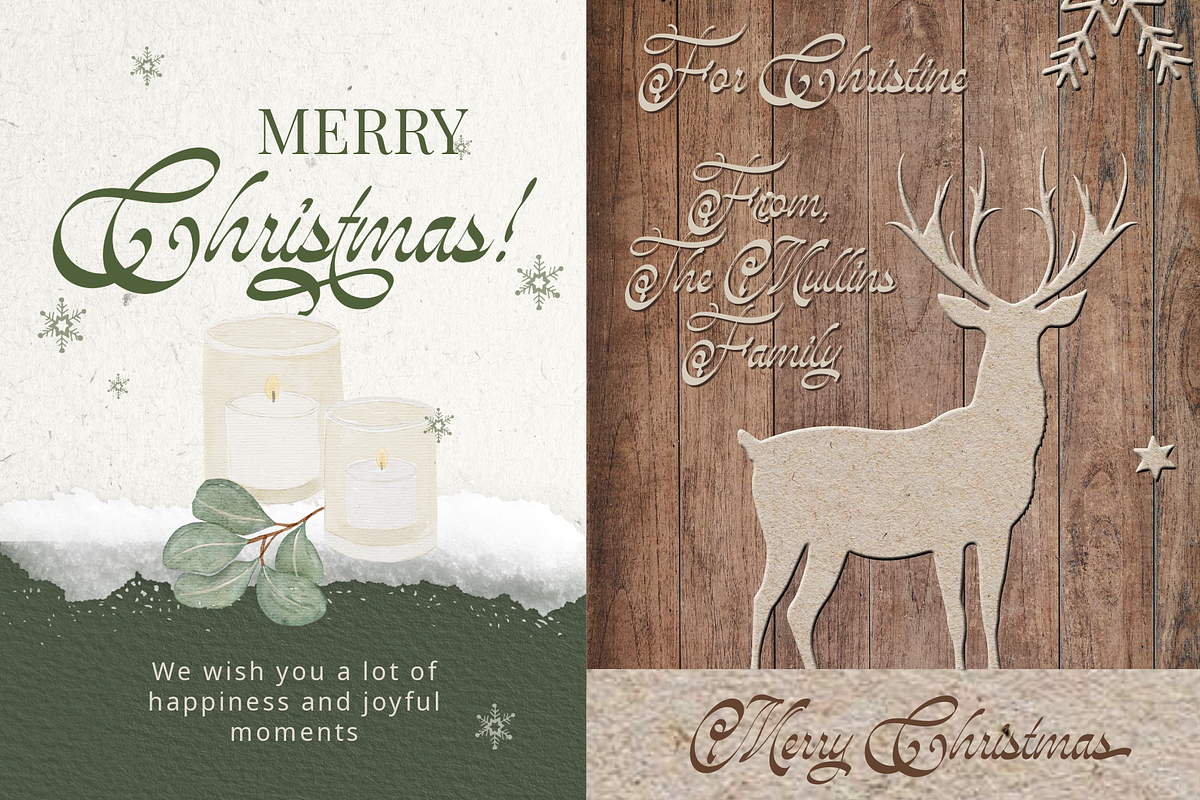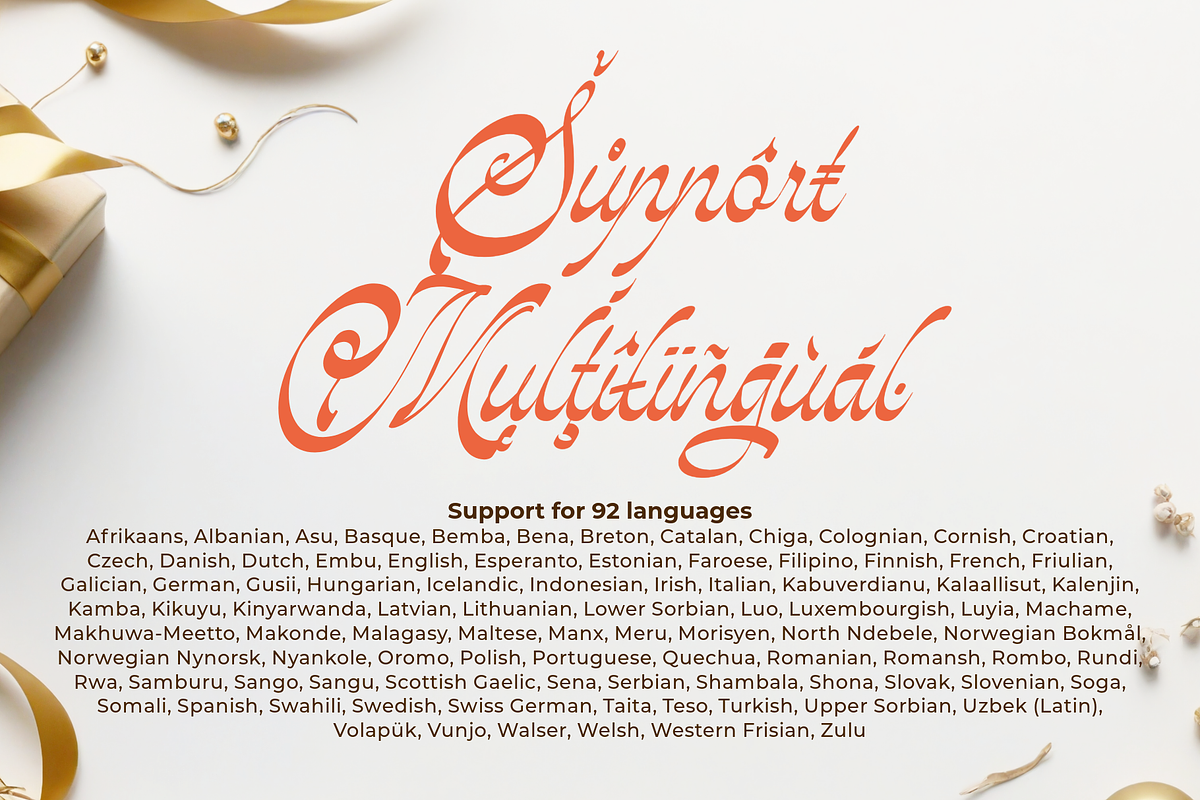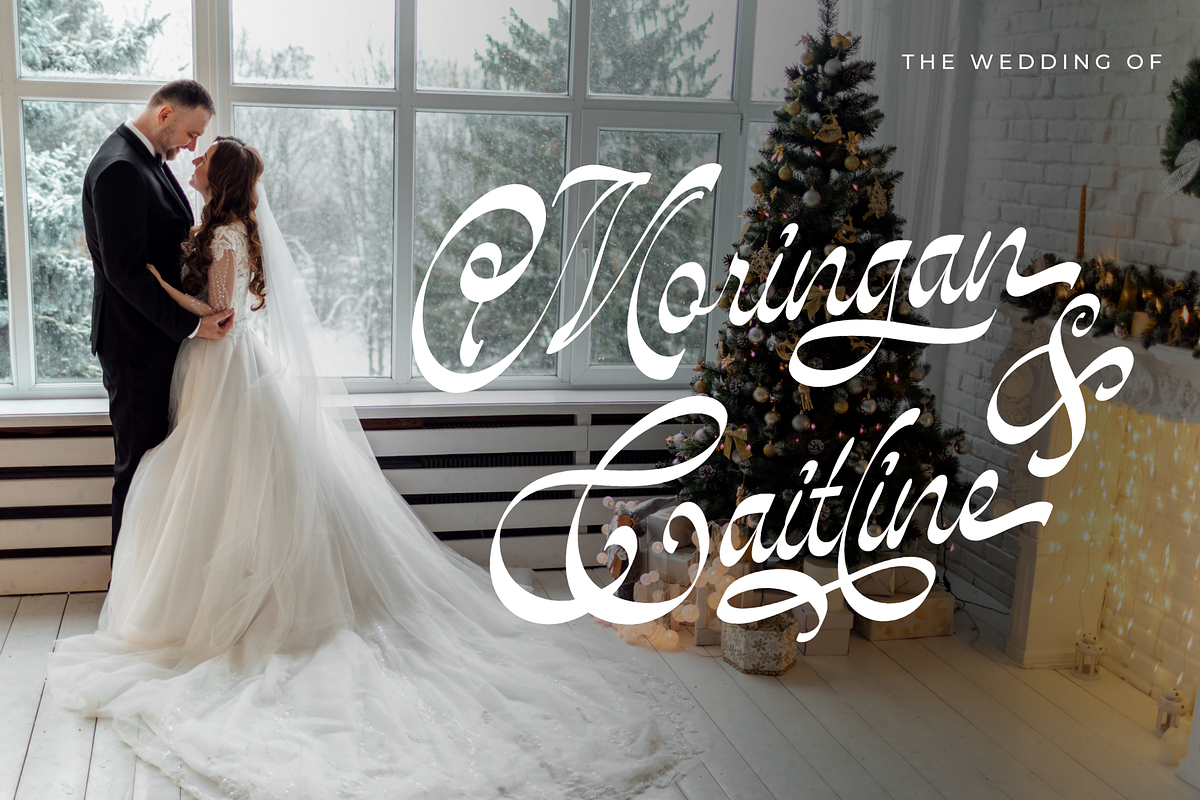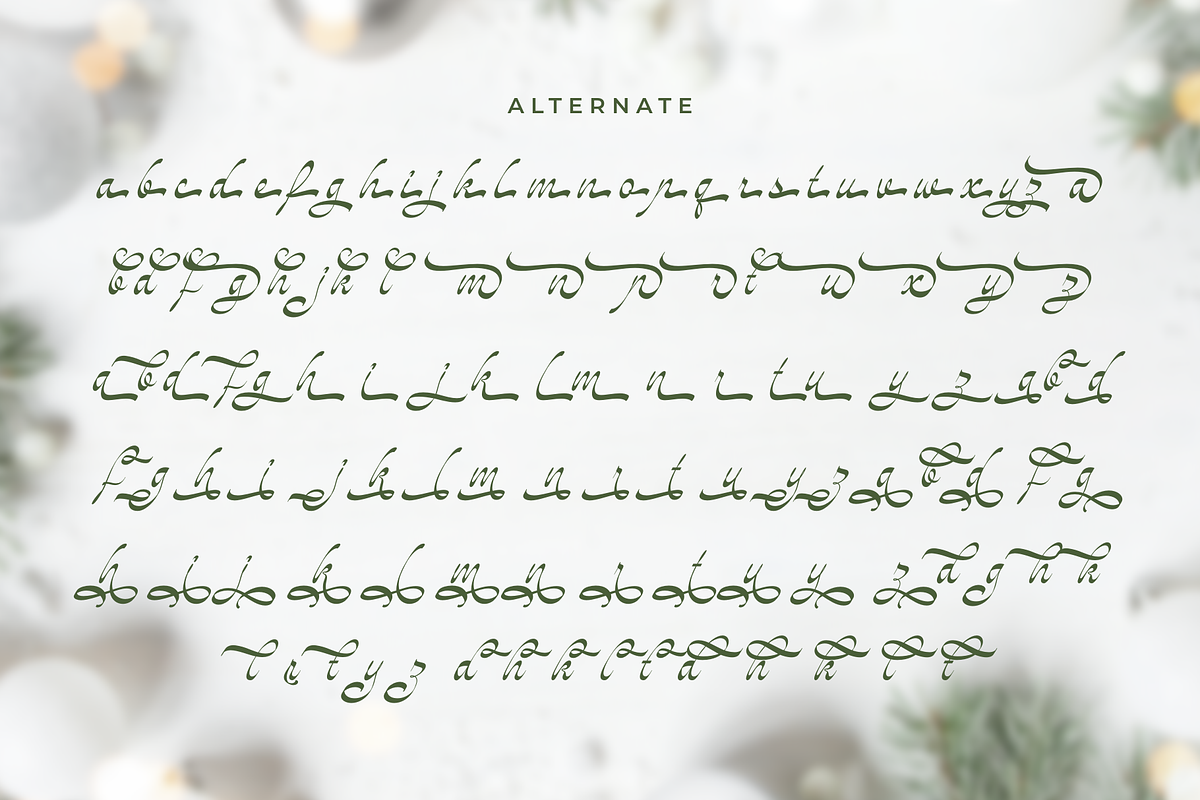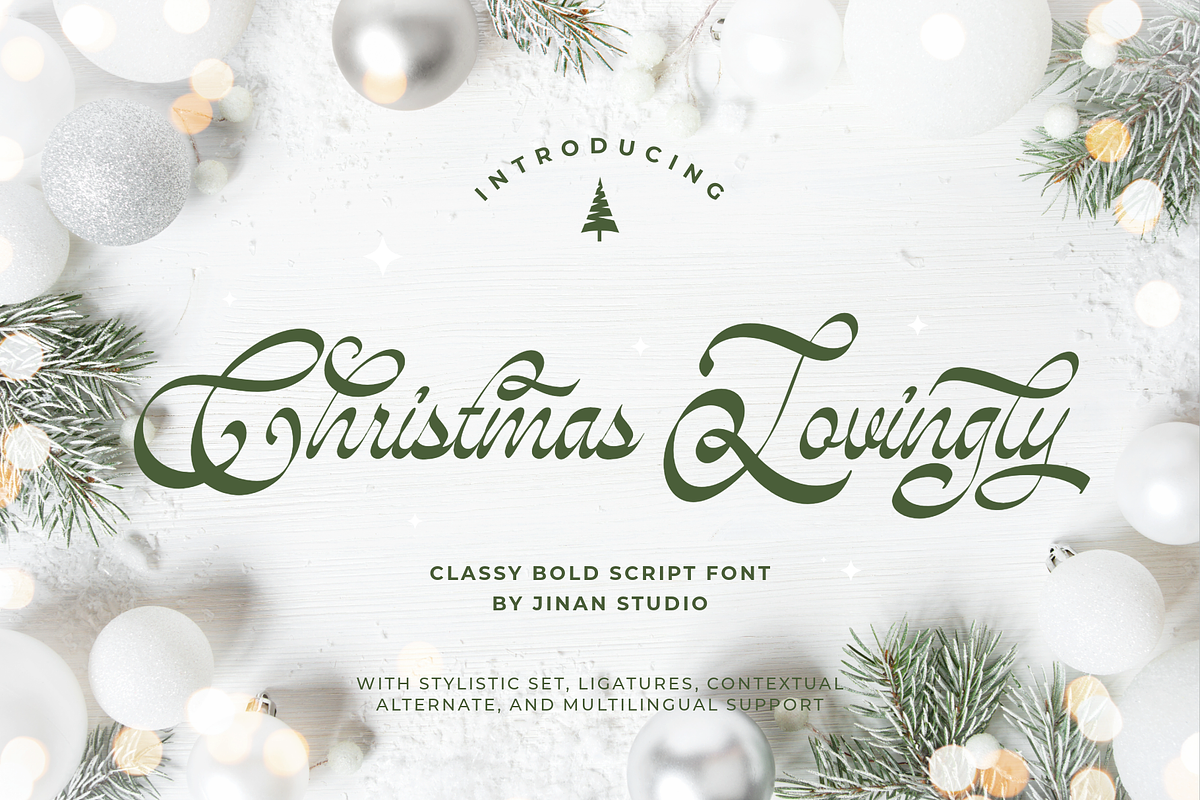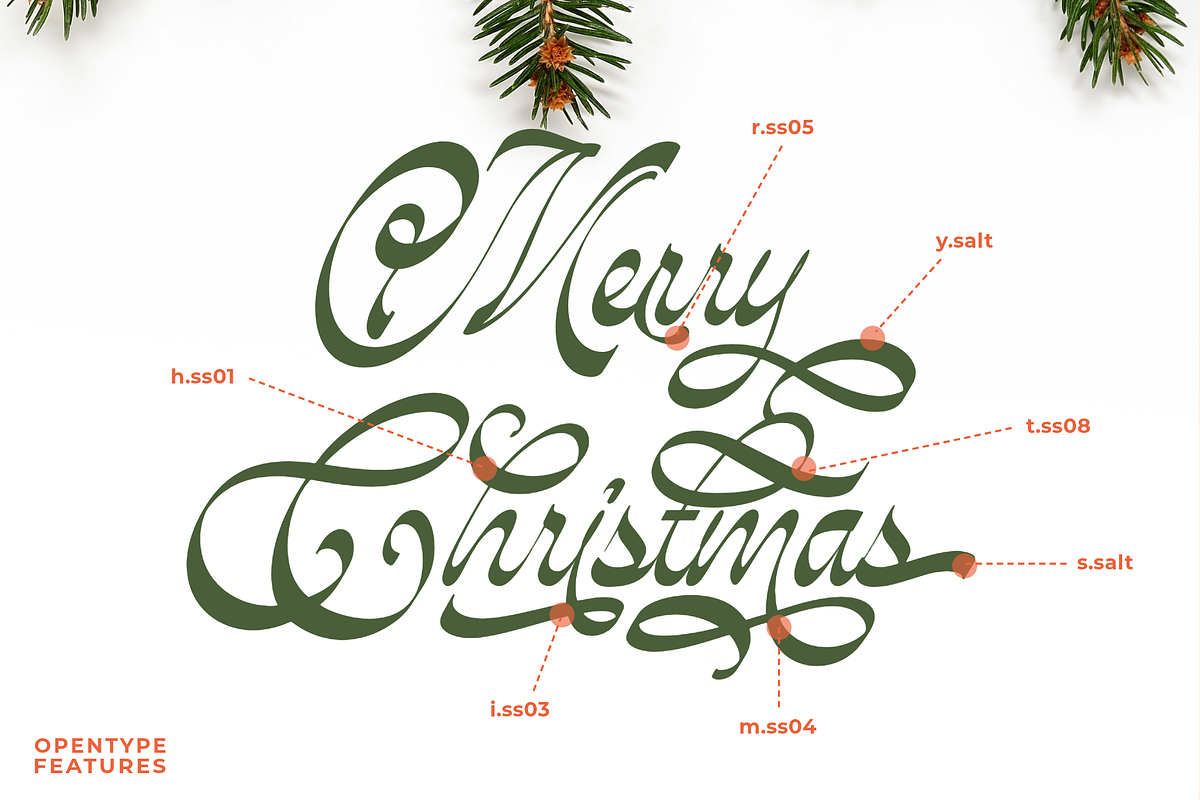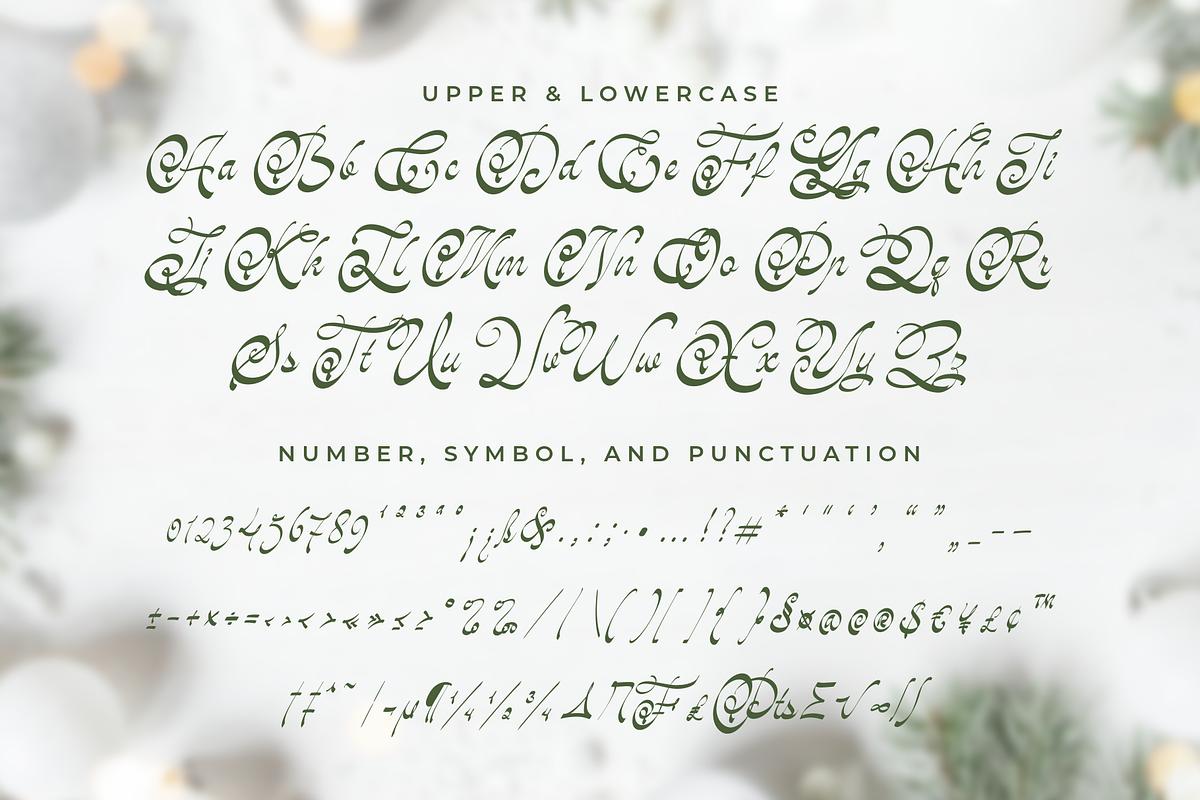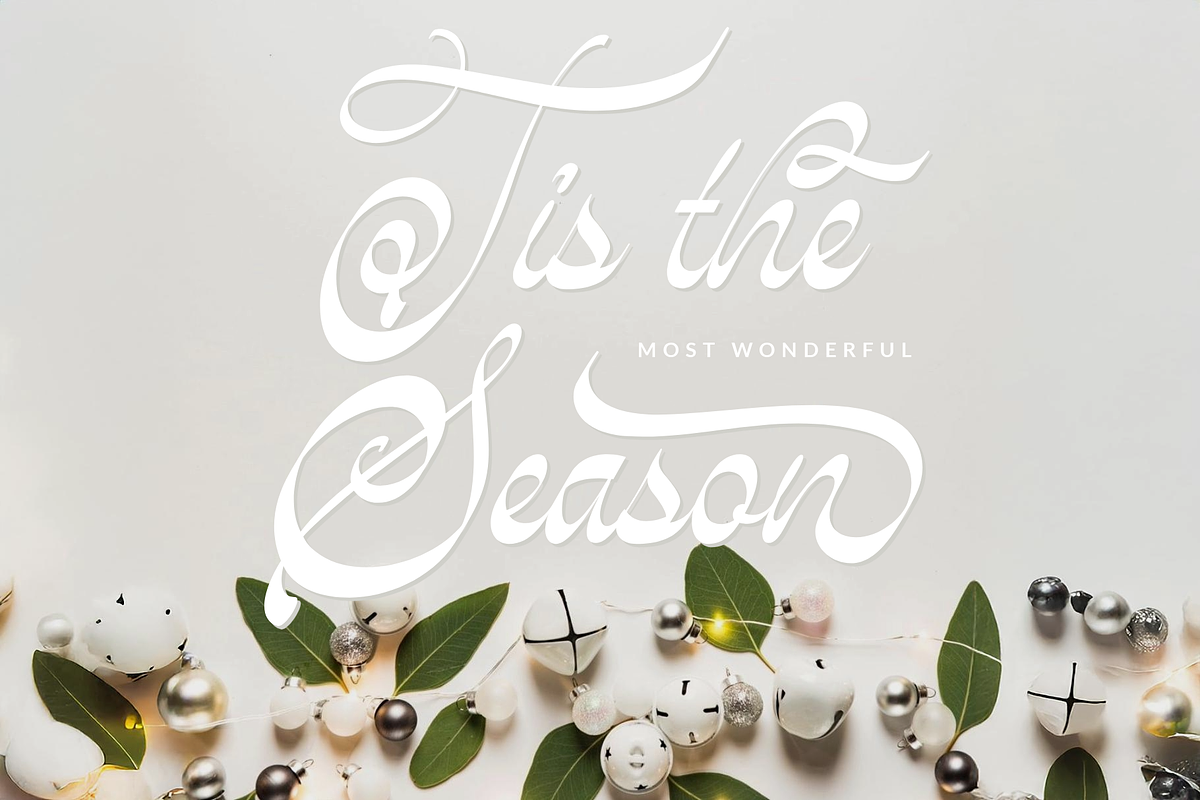
Christmas Lovingly
Experience the merriment and joviality of the holiday season with Christmas Lovingly, a grand and splendid script typeface. Exuding an exquisite balance of elegance and festivity, it is perfectly tailored for crafting striking holiday-themed visuals.
Be it chirpy Christmas cards, welcoming invitations, or charming logos, this font tightly laces sophistication and playfulness. Blending refined curves and whimsical alternates, it builds an enchanting festive air around your creations. “Christmas Lovingly” vaunts an array of stylistic sets, contextual alternates, and multilingual characters, adding versatility and a smooth finesse to any language it is expressed in
Its gentle streamlines combine seamlessly with a robust structure, emanating a warm and inviting vibe that cradles the true spirit of the holiday season.
- A set of uppercase and lowercase glyphs
- Number, symbol, and punctuation
- Alternates, swash, and ligatures
- Access underline swash by keyboard, just type _1 until _6 to feature it.